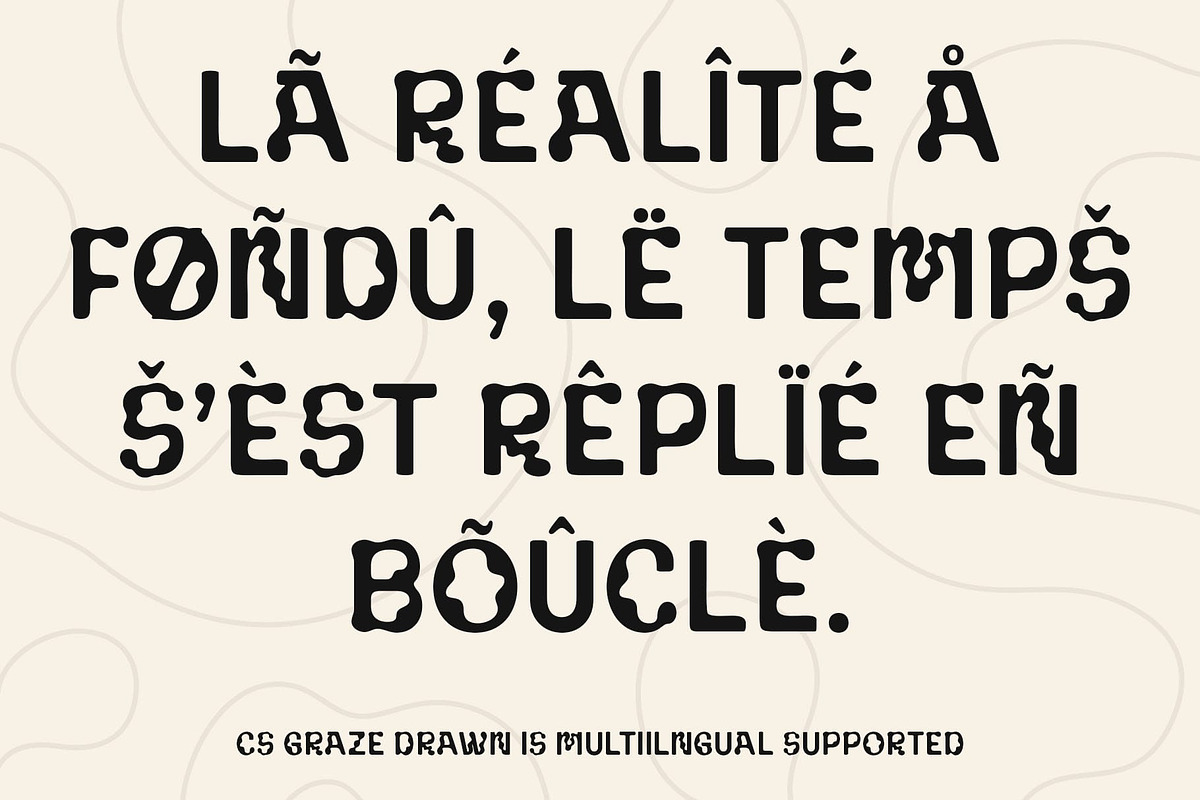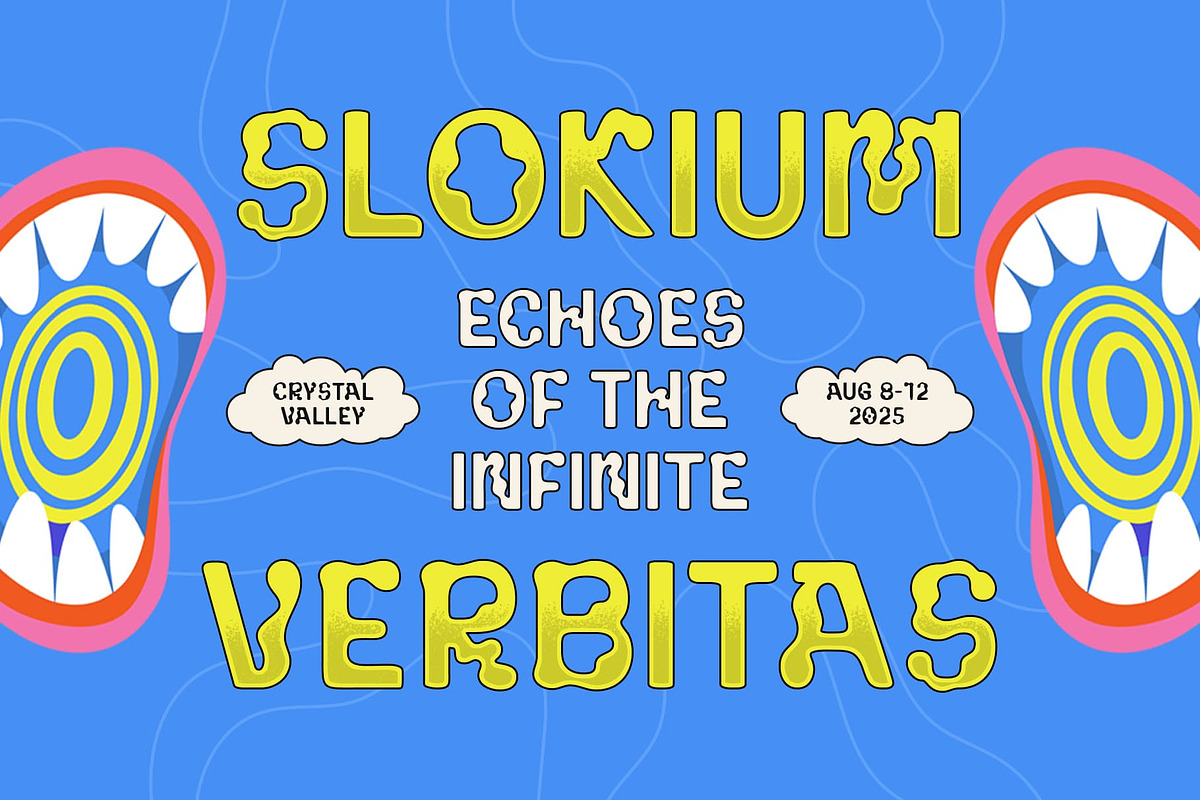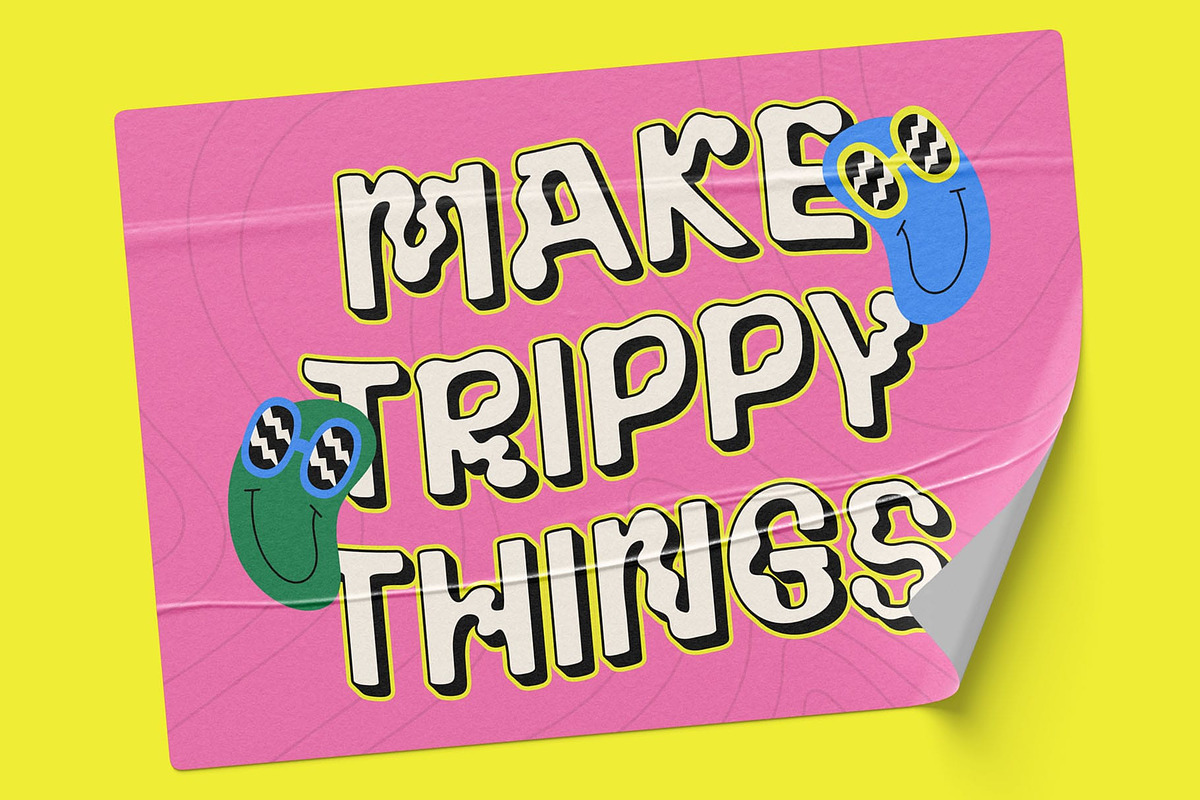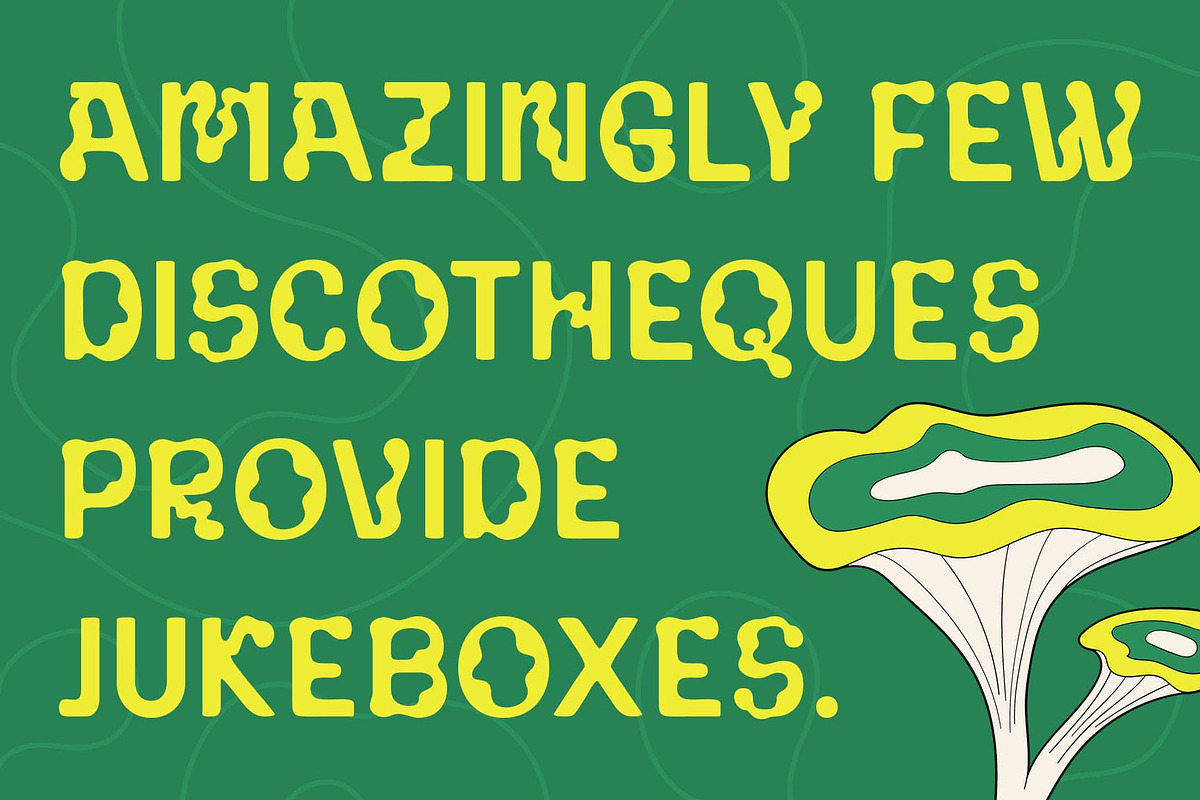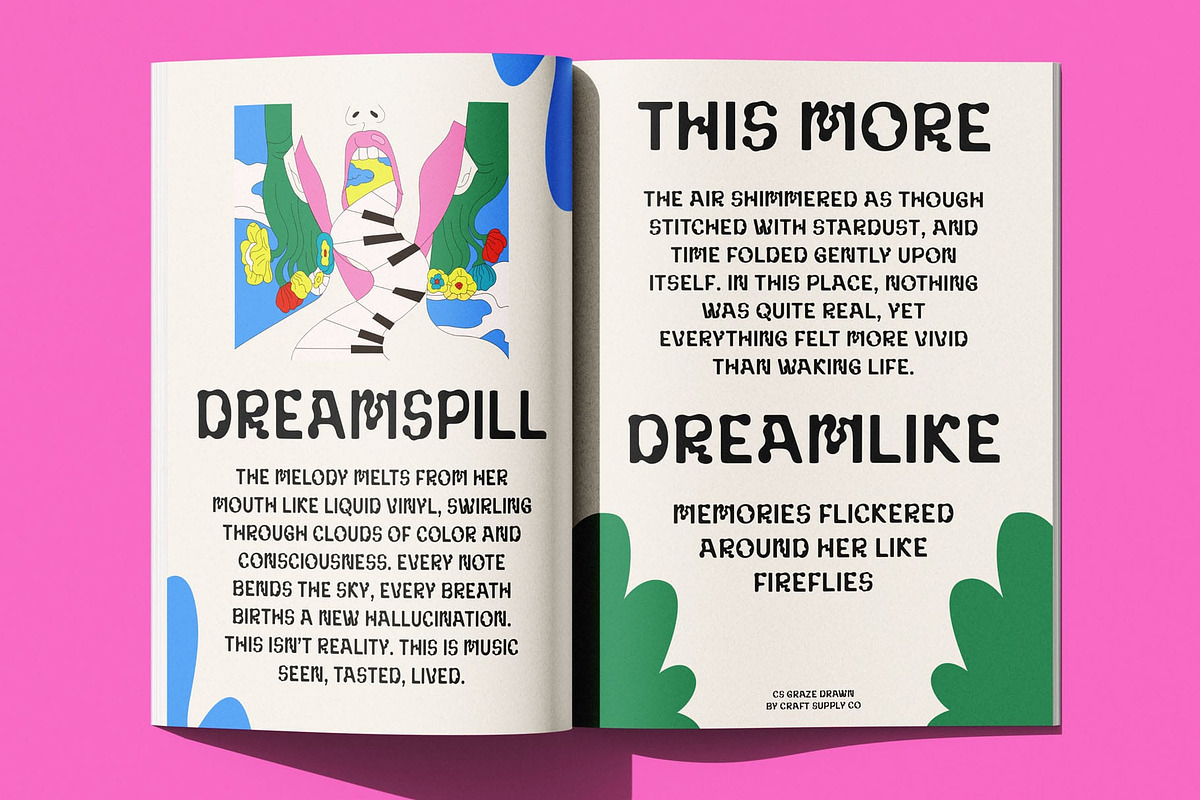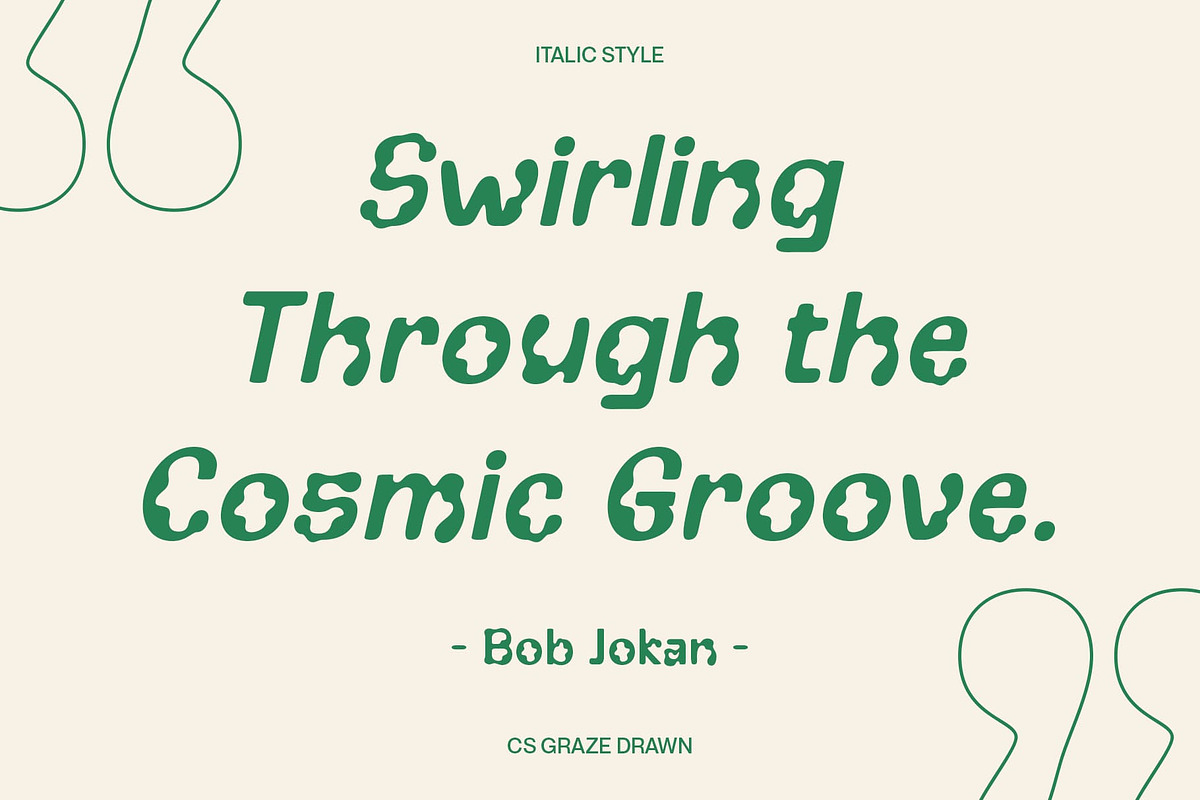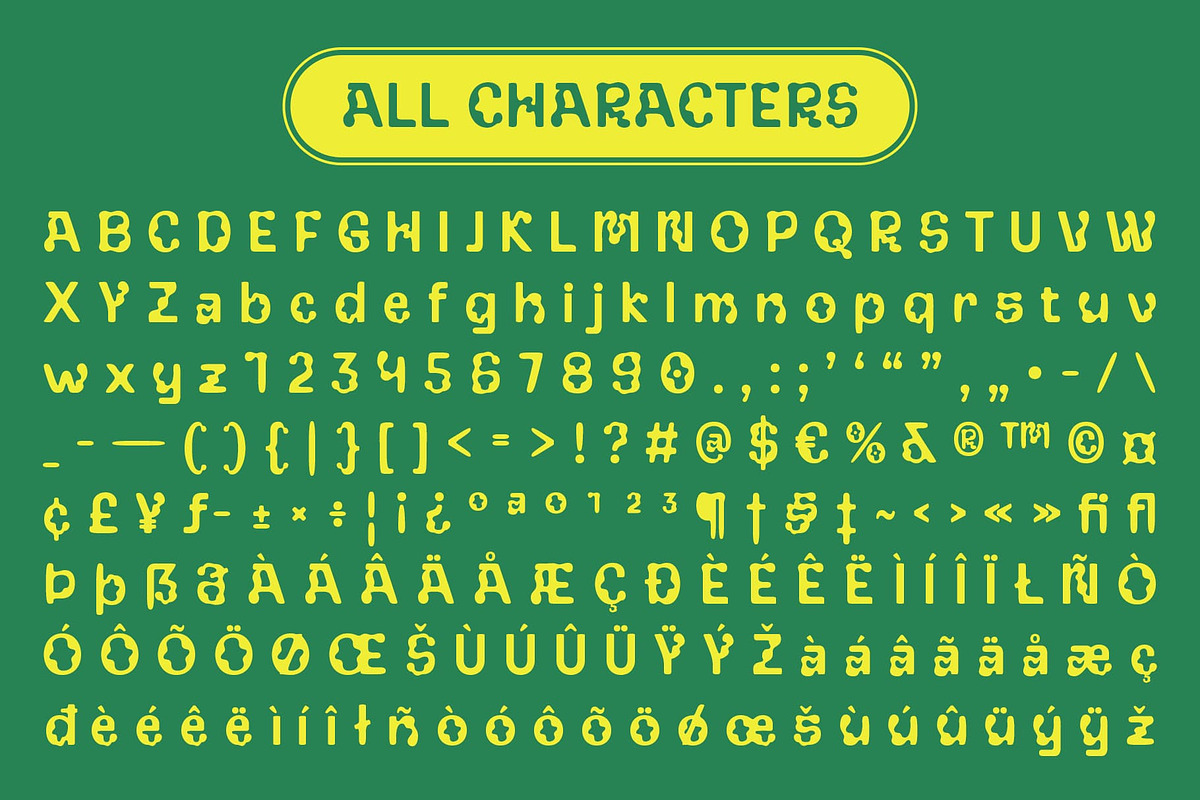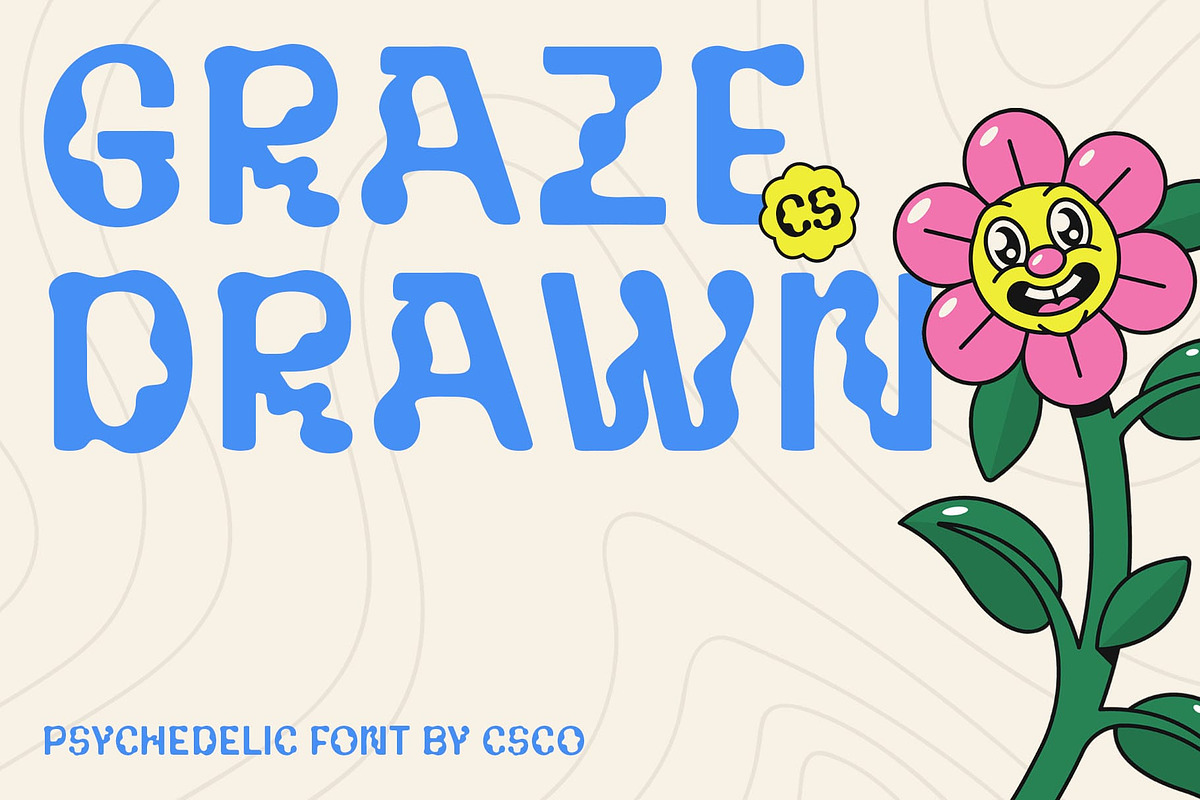
CS Graze Drawn
CS Graze Drawn – Psychedelic Energy with a Handcrafted Edge
Modern Display Font with Psychedelic Style CS Graze Drawn is a modern display font that bursts with expressive, psychedelic character. Its free-flowing, unconventional letterforms capture the energetic and eccentric spirit of 60s and 70s design, infused with a contemporary twist. The font’s bold curves and dynamic structure immediately draw attention, making it perfect for designs that demand visual impact.
Funky Vibe with Artistic Personality The font radiates a funky, playful vibe that brings life and attitude to any creative layout. Each character feels vibrant and full of personality, ideal for projects that embrace individuality and bold artistic choices. It’s the kind of font that doesn’t whisper—it shouts with style.
Drawn Effect for Handcrafted Expression Adding to its uniqueness, the drawn effect introduces a textured, hand-rendered finish. This handcrafted quality gives this psychedelic font a more human, artistic feel—perfect for creative branding, posters, or album artwork that needs a personal and experimental edge.
Perfect for Bold, Creative Projects Whether you’re working on music posters, artistic packaging, experimental graphics, or branding for imaginative products, its offers a distinct voice that’s both bold and expressive. It’s a font made for designers who want to stand out and make a statement with character, creativity, and funk.